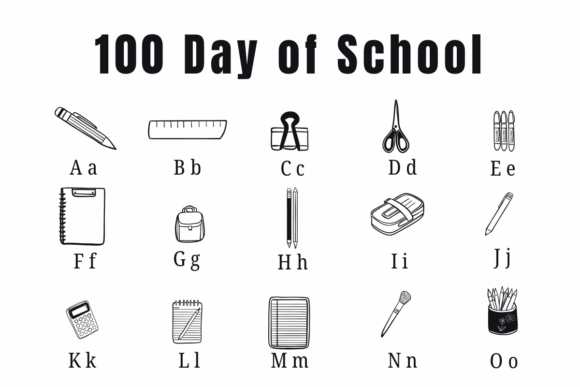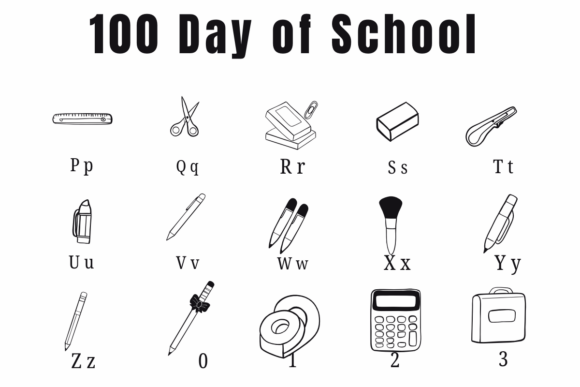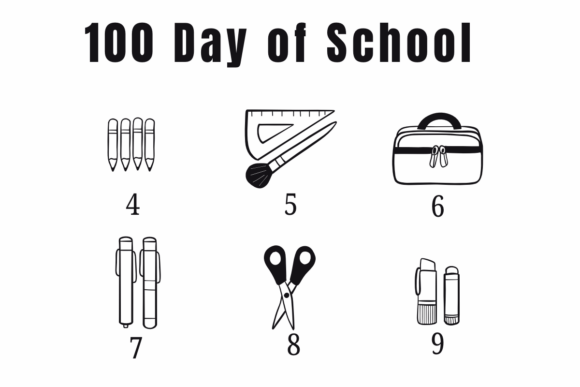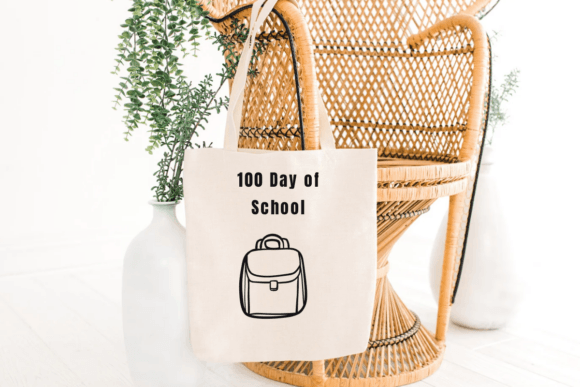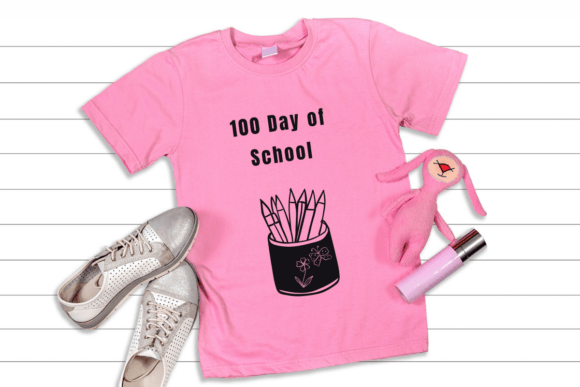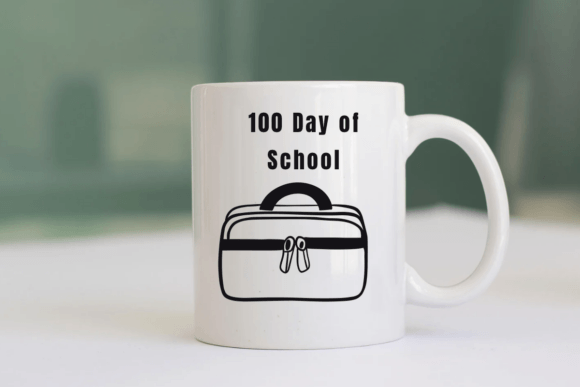
Celebrate School Spirit with the 100 Day of School Dingbats Font
Are you looking for a fun and creative way to add some school spirit to your designs? Look no further than the 100 Day of School Dingbats Font! This exciting new font features a collection of hand-drawn school-themed doodles that are perfect for classroom decor, student projects, educational printables, or teacher resources.
What is the 100 Day of School Dingbats Font?
The 100 Day of School Dingbats Font is a unique and playful font that features a range of school-themed icons and doodles. From stationery and supplies to creative accents and decorations, this font has everything you need to add a touch of personality to your designs.
With its hand-drawn design, this font has a charming and whimsical feel that’s perfect for educational settings. Whether you’re a teacher, designer, or crafter, you’ll love the versatility and creativity that this font has to offer.
Key Features of the 100 Day of School Dingbats Font
- Hand-drawn design: Each icon and doodle in this font has been carefully hand-drawn to give it a unique and personal touch.
- School-themed icons: The font features a range of school-themed icons, including stationery, supplies, and creative accents.
- Perfect for classroom decor: Use this font to create fun and engaging classroom decor, including bulletin boards, posters, and displays.
- Great for student projects: Add a touch of personality to student projects with these playful icons and doodles.
- Educational printables: Use this font to create educational printables, such as worksheets, activity sheets, and educational posters.
- Teacher resources: This font is also perfect for teacher resources, including lesson plans, newsletters, and classroom newsletters.
Here are a few ideas for using this font:
- Create a classroom display: Use the font to create a fun and engaging classroom display, featuring school-themed icons and doodles.
- Make student projects more engaging: Add a touch of personality to student projects with these playful icons and doodles.
- Design educational printables: Use this font to create educational printables, such as worksheets, activity sheets, and educational posters.
- Create teacher resources: This font is also perfect for teacher resources, including lesson plans, newsletters, and classroom newsletters.
Benefits of Using the 100 Day of School Dingbats Font
There are many benefits to using the 100 Day of School Dingbats Font in your designs. Here are a few:
- Adds a touch of personality: This font adds a touch of personality and whimsy to your designs, making them more engaging and fun.
- Perfect for educational settings: The font is perfect for educational settings, including classrooms, schools, and educational institutions.
- Versatile: The font is versatile and can be used in a range of design software, including Microsoft Word, Adobe Illustrator, and Canva.
If you’re looking for a fun and creative way to add some school spirit to your designs, look no further than the 100 Day of School Dingbats Font. With its hand-drawn design and school-themed icons, this font is perfect for classroom decor, student projects, educational printables, or teacher resources.